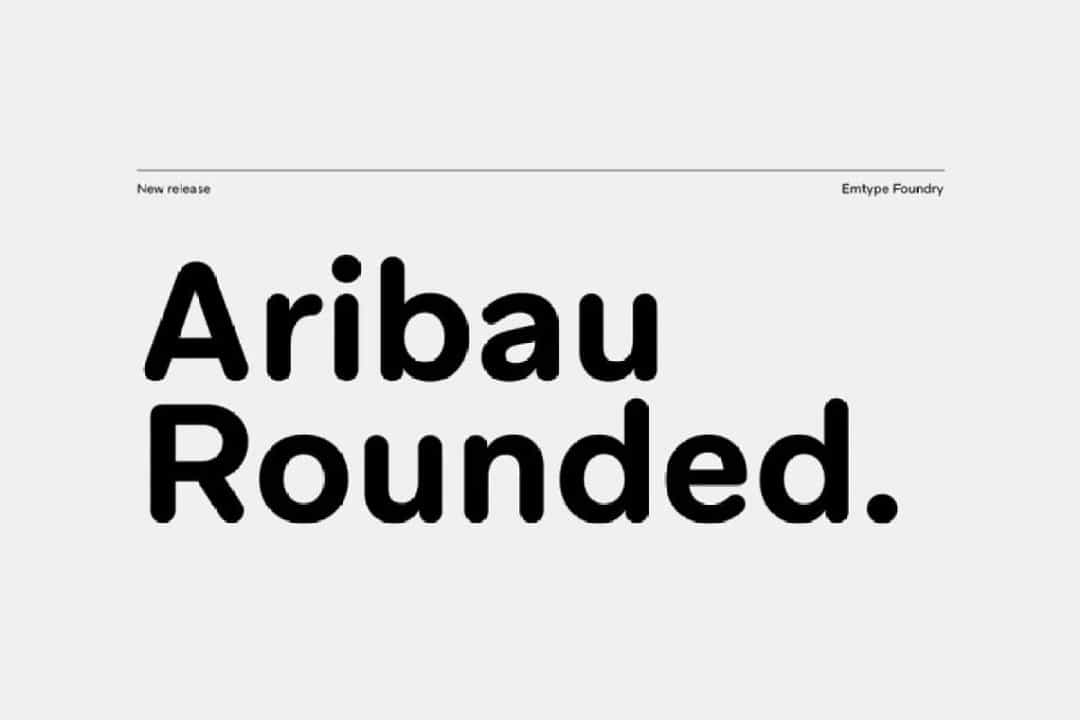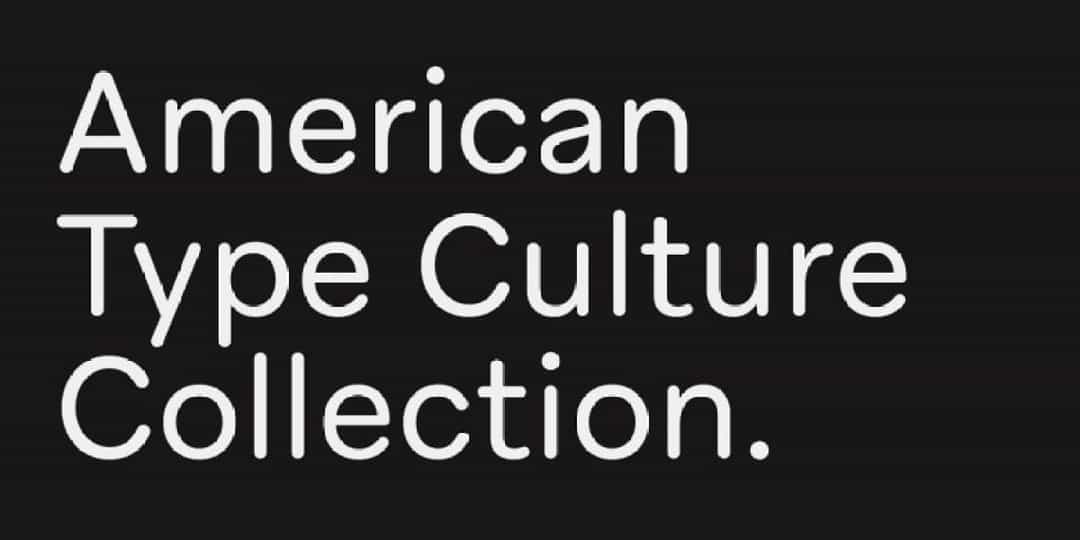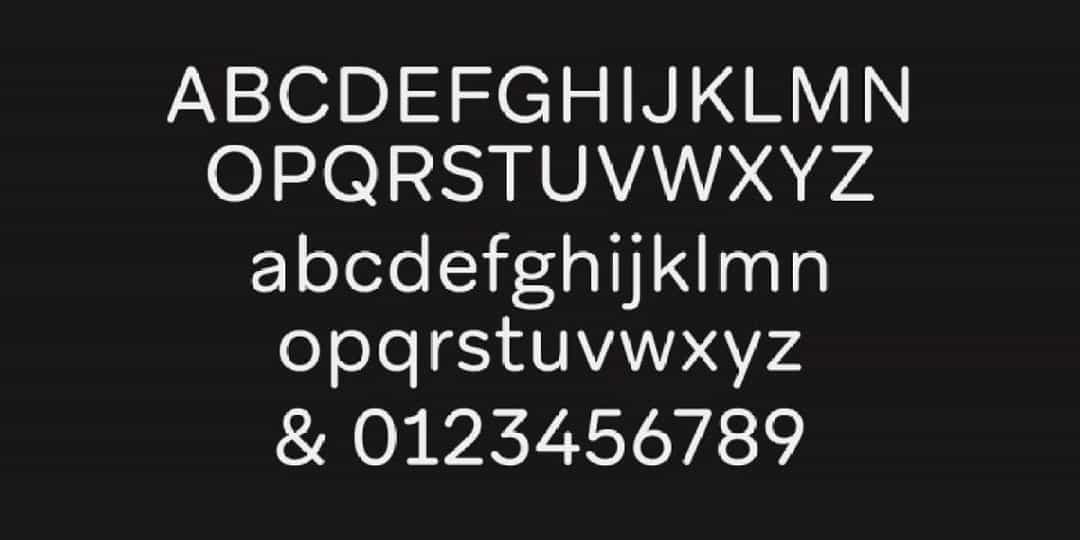
Aribau Roundedis an amazing round sans serif family of fonts designed specifically for bank institutions. While keeping all the elegance and clarity found in Aribau Grotesk, its round curves add warmth without making the font too playful or childish.